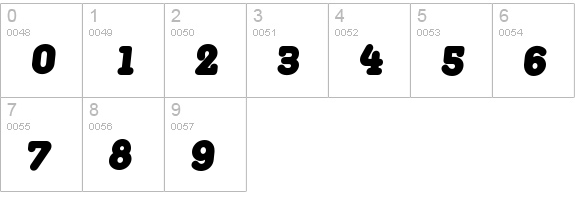
MelodItal Regular is the standard, neutral variant in the MelodItal typeface family \xE2\x80\x94 well suited to general body text, paragraphs, and standard typographic work.
MelodItal Regular font is a charming and elegant typeface that exudes sophistication and style. With its sleek and fluid design, this font is perfect for adding a touch of class to any project. The italicized letters create a sense of movement and grace, making it ideal for use in headings, invitations, and other creative designs. What's even better is that MelodItal Regular font is available for free download at FontsMarket.com. So you can easily access this beautiful typeface and use it in your projects without any cost. Don't miss out on the opportunity to enhance your designs with the timeless beauty of MelodItal Regular font. Download it today and elevate your creations to the next level!